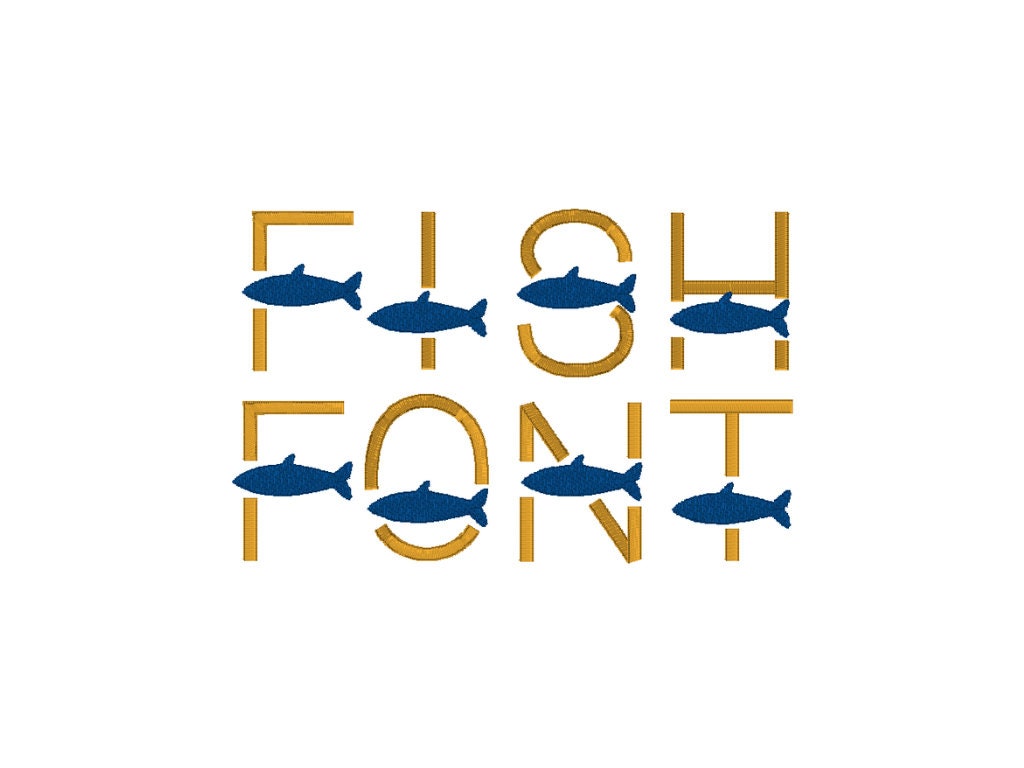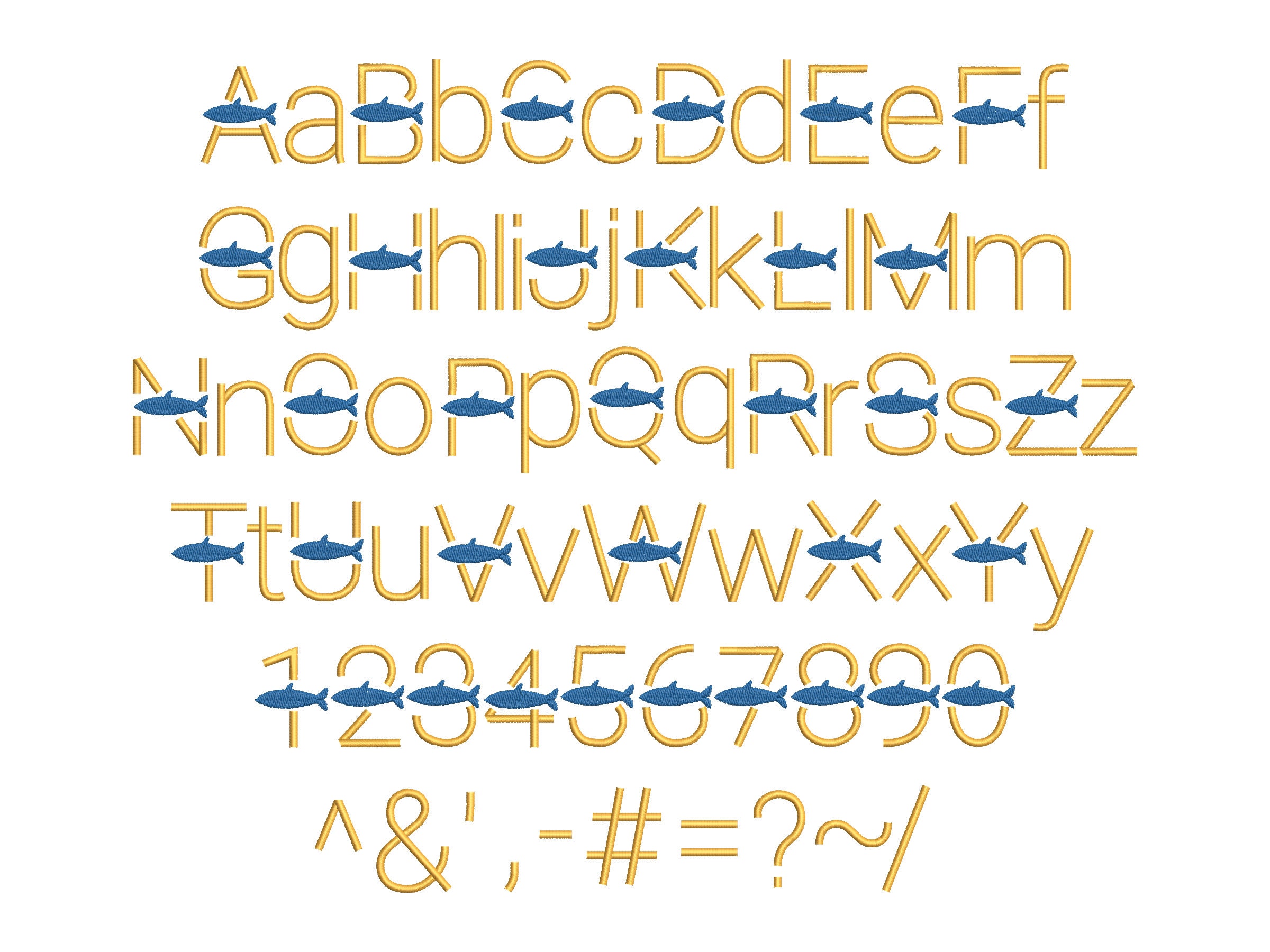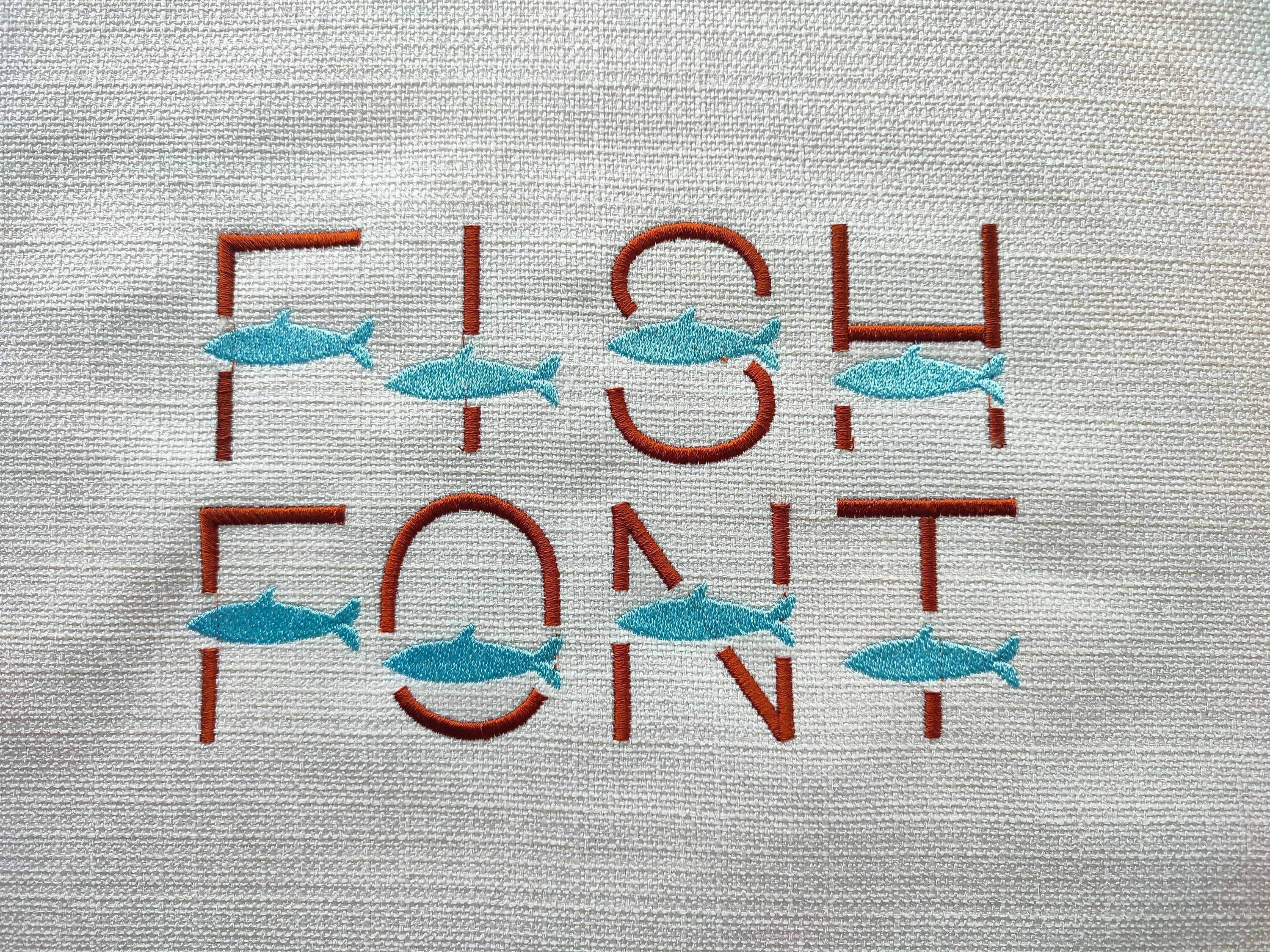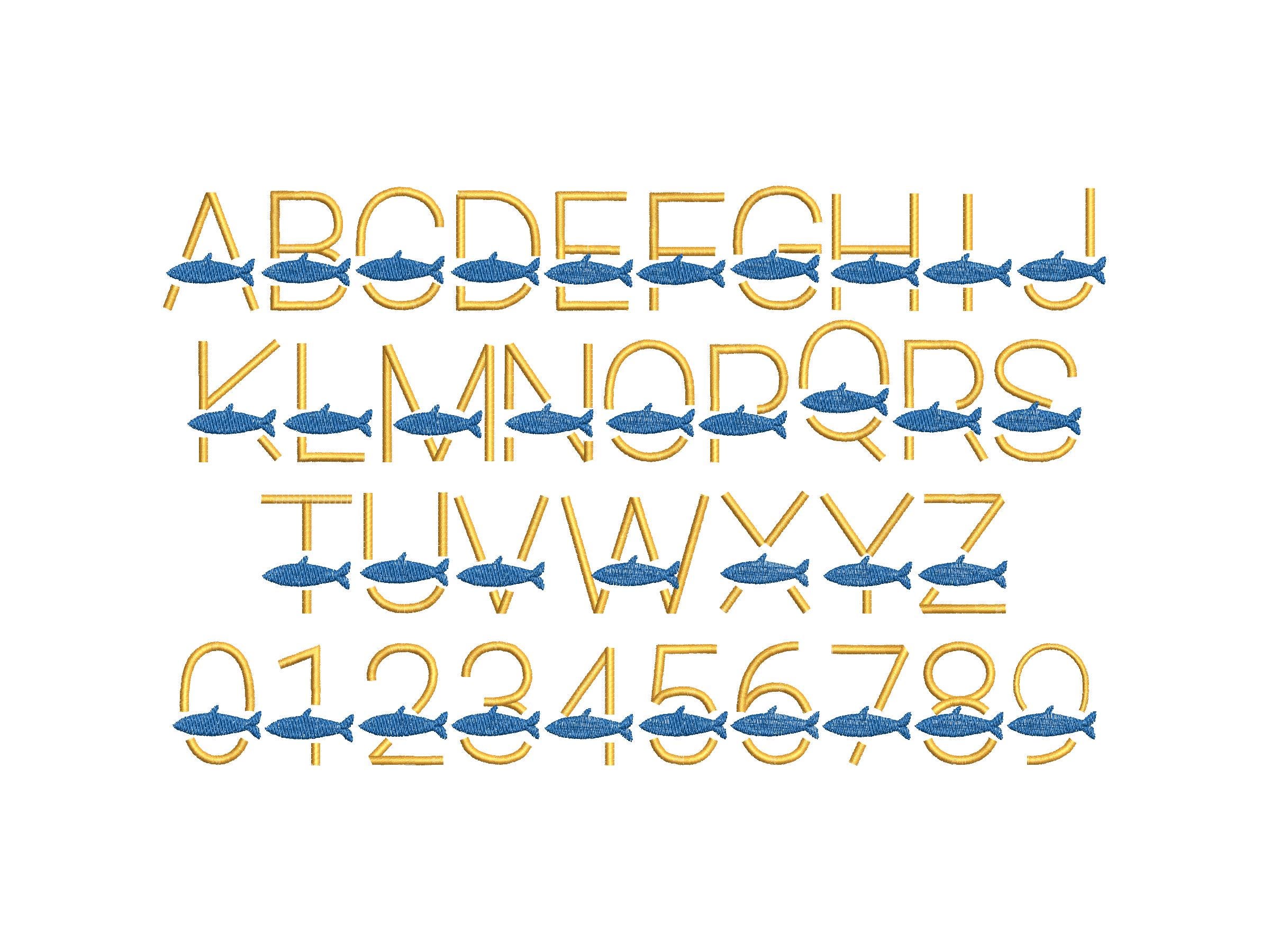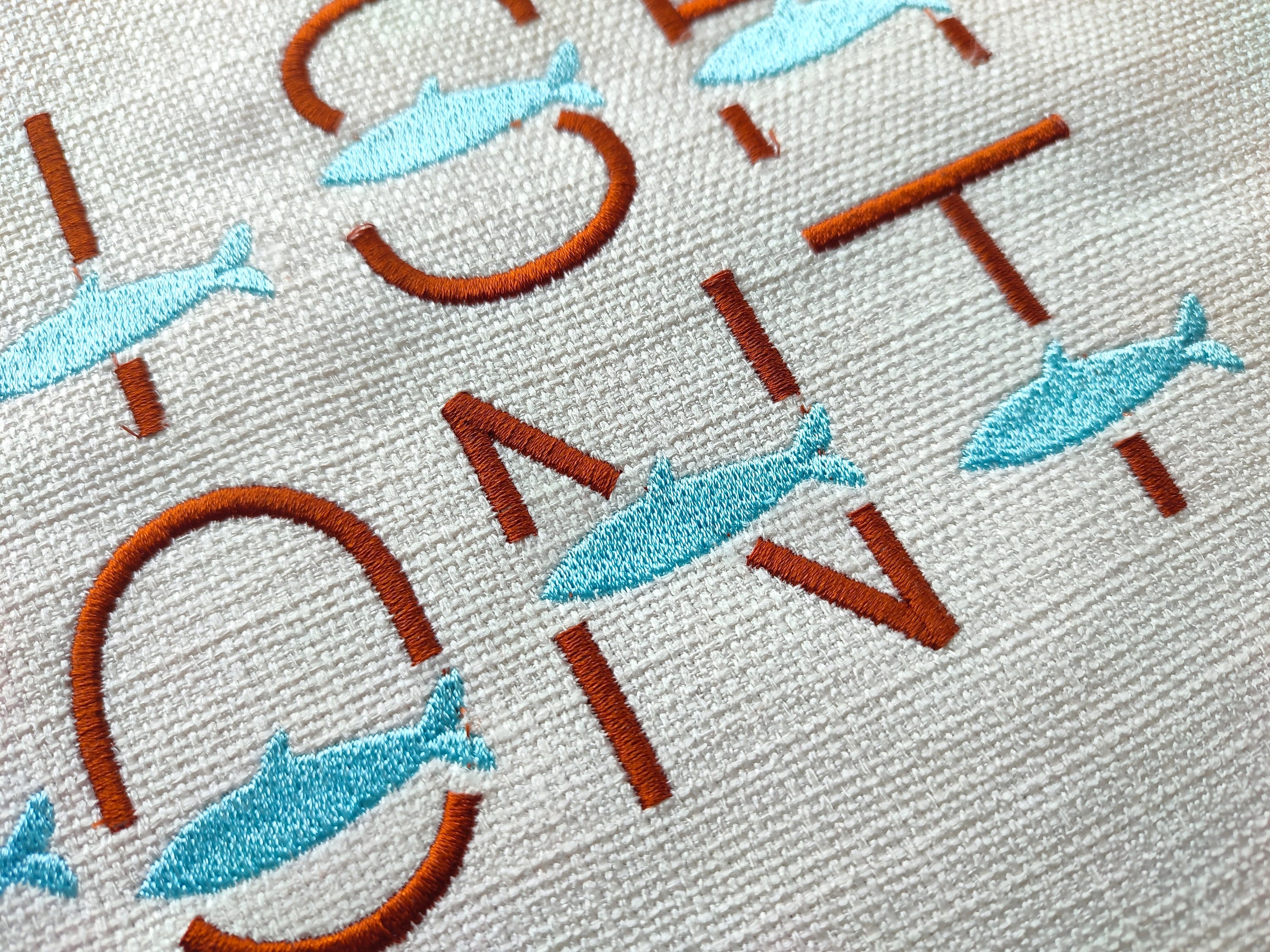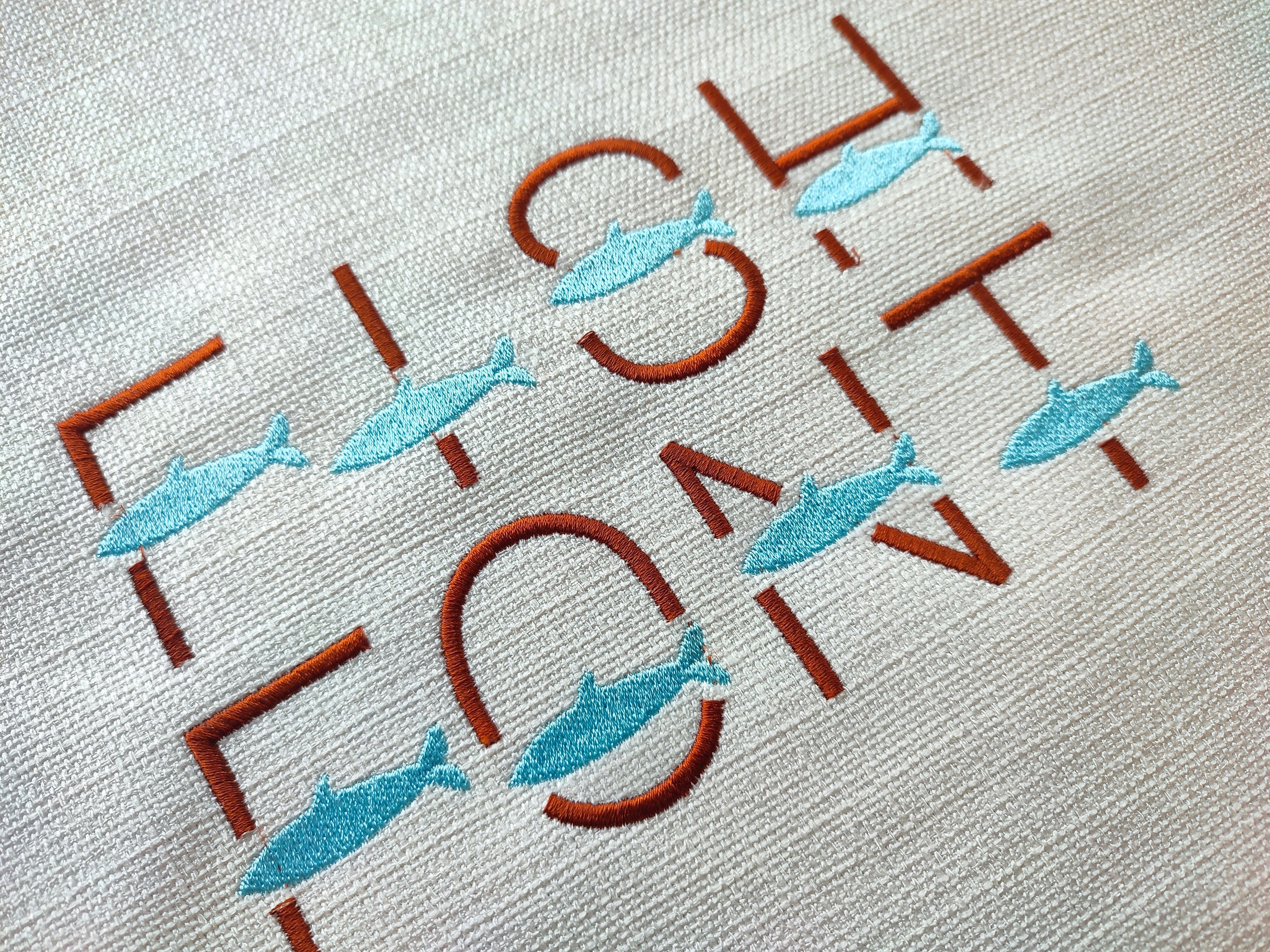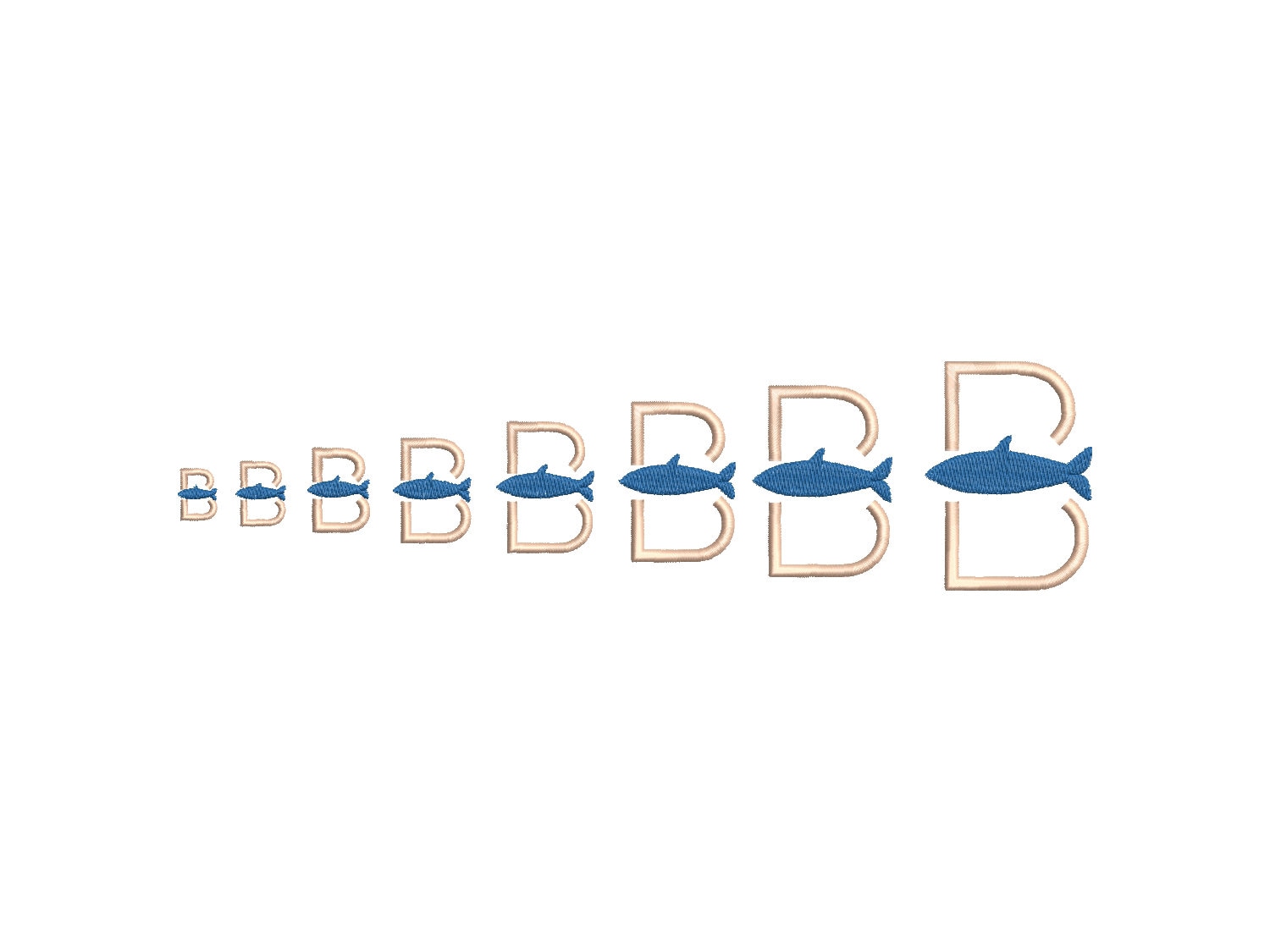
Complete alphabet: includes uppercase and lowercase letters, numbers, ampersand &, and punctuation.
Two alphabet styles are included, as shown in the images: the uppercase letters and numbers feature a fish design in both upper and lower positions, while the lowercase letters and punctuation do not include the fish.